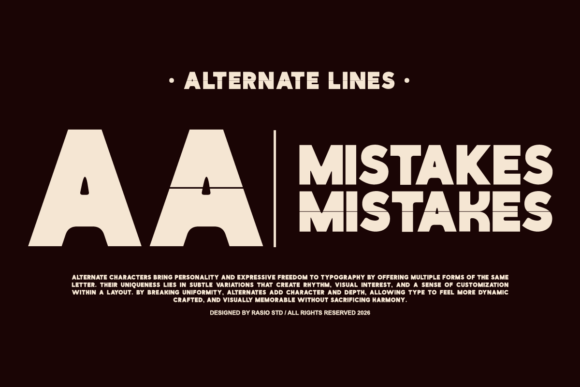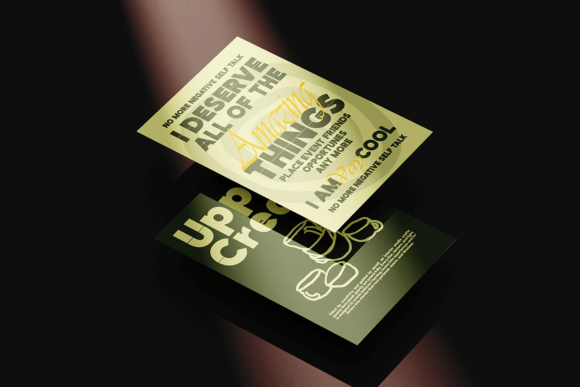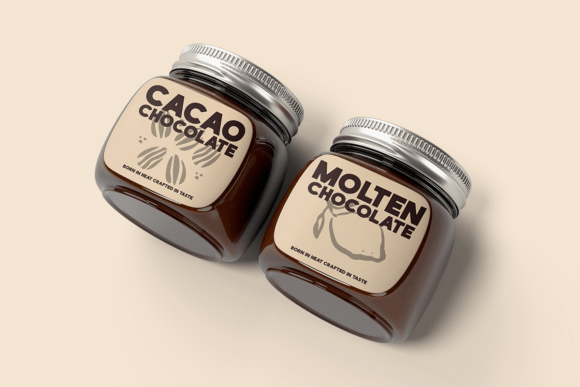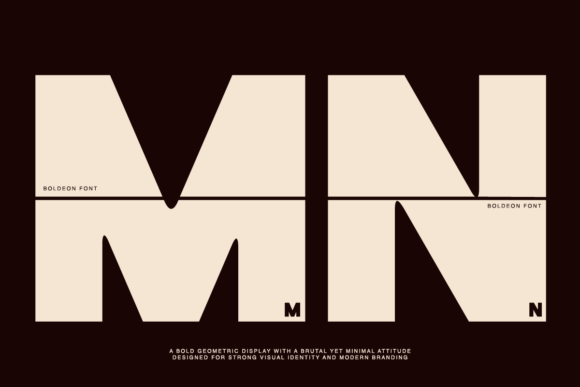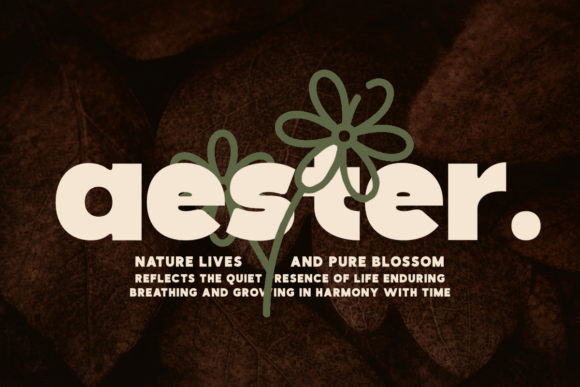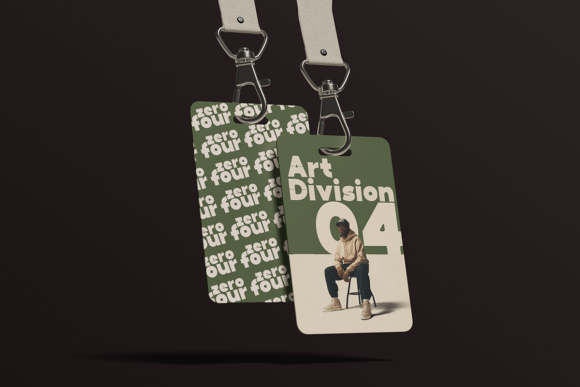
Introducing Boldeon Font: The Ultimate Display Typeface for Impactful Designs
In the world of typography, a good font can make all the difference in creating a lasting impression. For designers and crafters looking for a bold and attention-grabbing typeface, Boldeon Font is the perfect solution. This powerful display font is designed to turn heads and leave a lasting impact, making it ideal for a wide range of design projects.
The Power of Boldeon Font
Boldeon Font is a chunky and geometric typeface that exudes confidence and strength. Its bold letterforms are carefully crafted to grab attention and dominate any design project. Whether you’re working on impactful headlines, posters, product branding, logo designs, or bold editorial layouts, Boldeon Font is the perfect choice.
Key Features of Boldeon Font
So, what makes Boldeon Font so special? Here are some of its key features:
- Uppercase and Lowercase Letters: Boldeon Font includes both uppercase and lowercase letters, giving you the flexibility to create a wide range of designs.
- Numerals and Punctuation: The font also includes numerals and punctuation marks, making it a comprehensive solution for all your design needs.
- Alternates: With alternate characters, you can add variety to your designs and create unique typography.
- Geometric Construction: Boldeon Font’s geometric construction gives it a modern and edgy feel, perfect for designs that require a bold statement.
Use Cases for Boldeon Font
Boldeon Font is a versatile typeface that can be used in a wide range of design projects, including:
- Impactful Headlines: Use Boldeon Font to create attention-grabbing headlines that dominate any design project.
- Posters and Flyers: The font’s bold letterforms make it perfect for posters and flyers that require a strong visual impact.
- Product Branding: Boldeon Font can help you create a strong brand identity with its confident and geometric design.
- Logo Designs: The font’s unique letterforms make it an excellent choice for logo designs that require a bold and memorable typography.
- Editorial Layouts: Boldeon Font can add a touch of edginess to your editorial layouts, making them stand out from the crowd.
Why Choose Boldeon Font?
With so many fonts available, why choose Boldeon Font? Here are some compelling reasons:
- Unmistakable Presence: Boldeon Font gives your typography an unmistakable presence that grabs attention and leaves a lasting impression.
- Design Flexibility: With its comprehensive character set and alternate characters, Boldeon Font offers unparalleled design flexibility.
- Modern and Edgy: The font’s geometric construction and bold letterforms make it perfect for modern and edgy designs.
In conclusion, Boldeon Font is a powerful display typeface that can elevate your designs to the next level. Its bold letterforms, geometric construction, and comprehensive character set make it perfect for a wide range of design projects. Whether you’re a designer or crafter, Boldeon Font is an excellent choice for anyone looking to create impactful and memorable designs. So, why wait? Download Boldeon Font today and experience the power of bold typography!